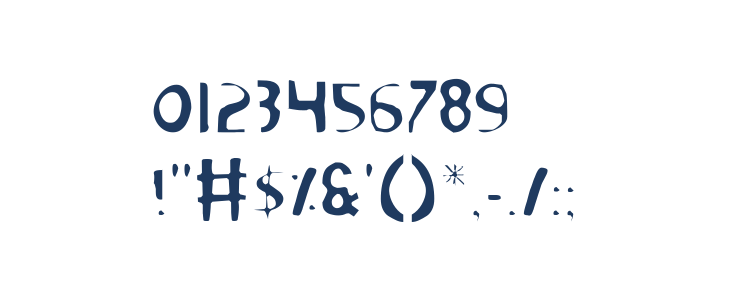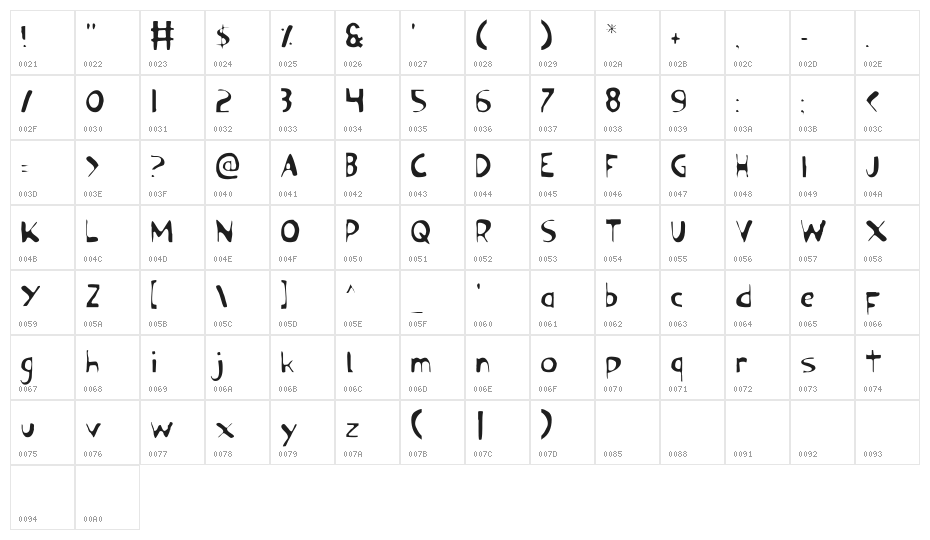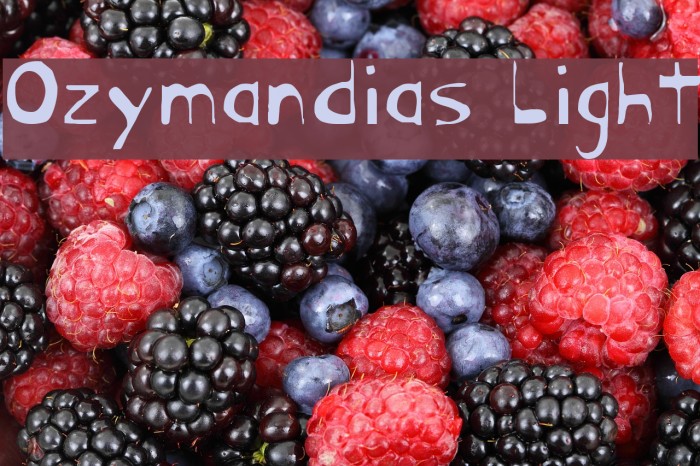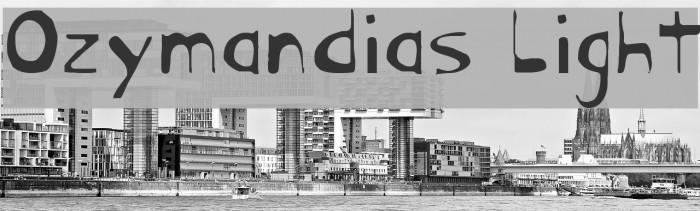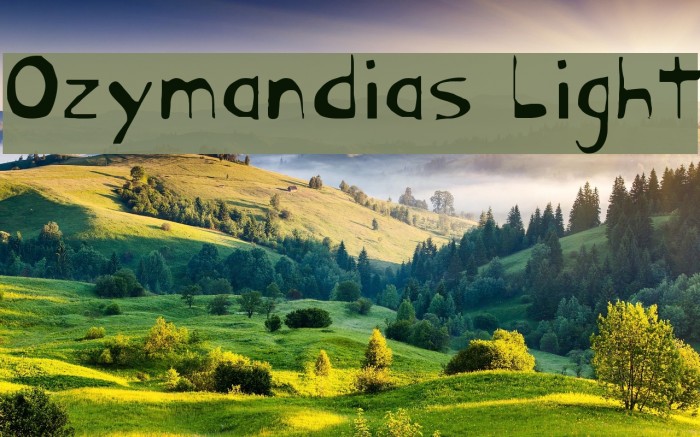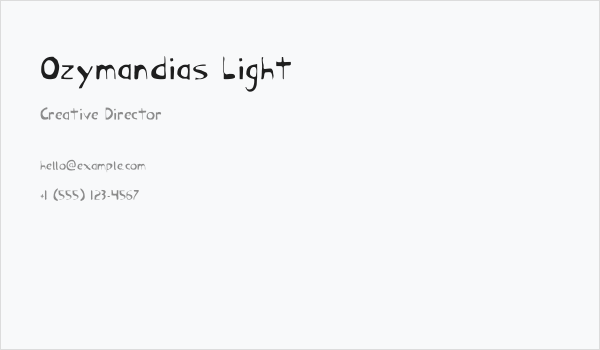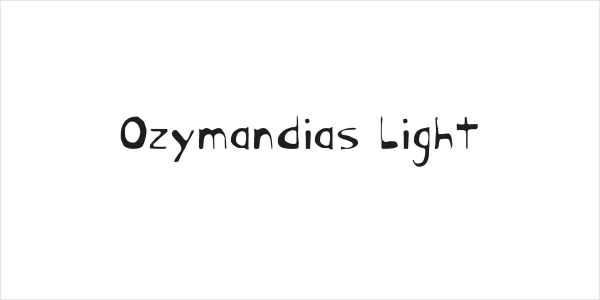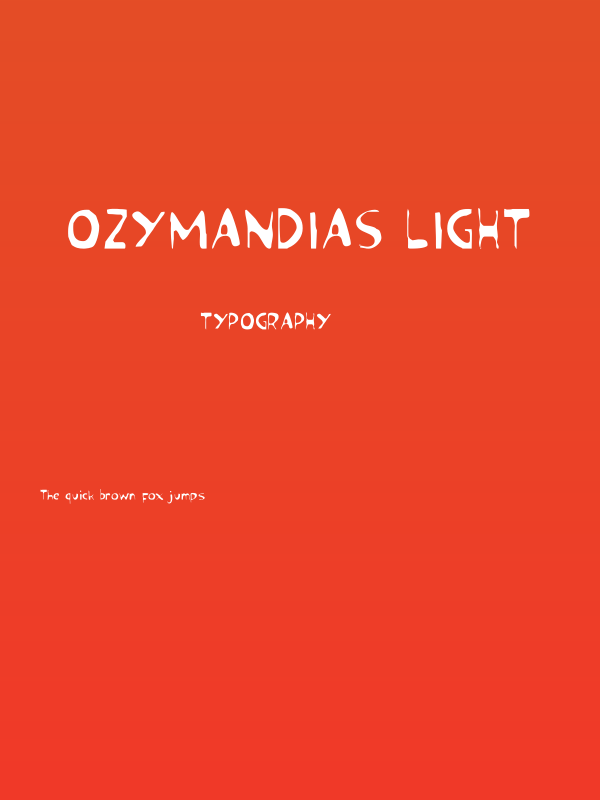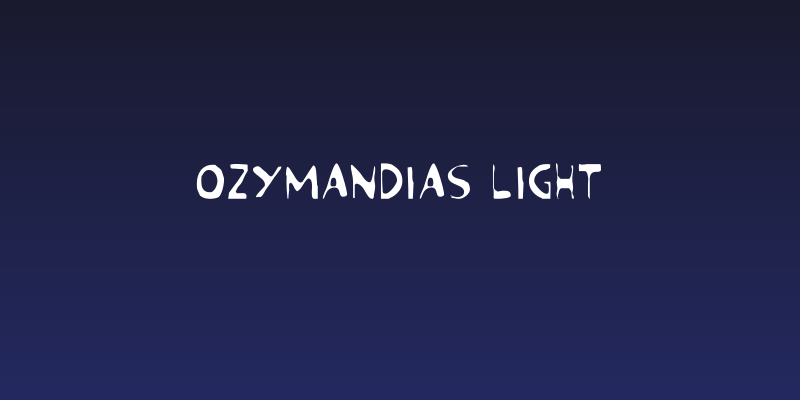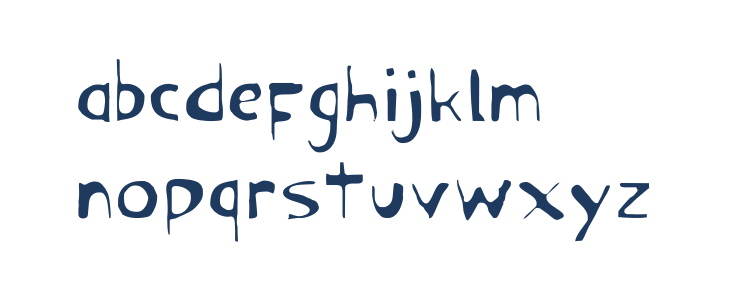
Ozymandias Light Font
Ozymandias Light Description
This font features a unique and artistic style with an organic, hand-drawn appearance. The characters have an uneven, slightly whimsical quality, with varying stroke thickness that adds to its charm. The uppercase letters are bold and expressive, while the lowercase letters maintain a playful yet readable form. Numbers and special characters follow the same artistic theme, making the font suitable for creative projects. The overall design suggests a sense of movement and fluidity, ideal for capturing attention in a distinctive way.
Overall StyleArtistic, Whimsical